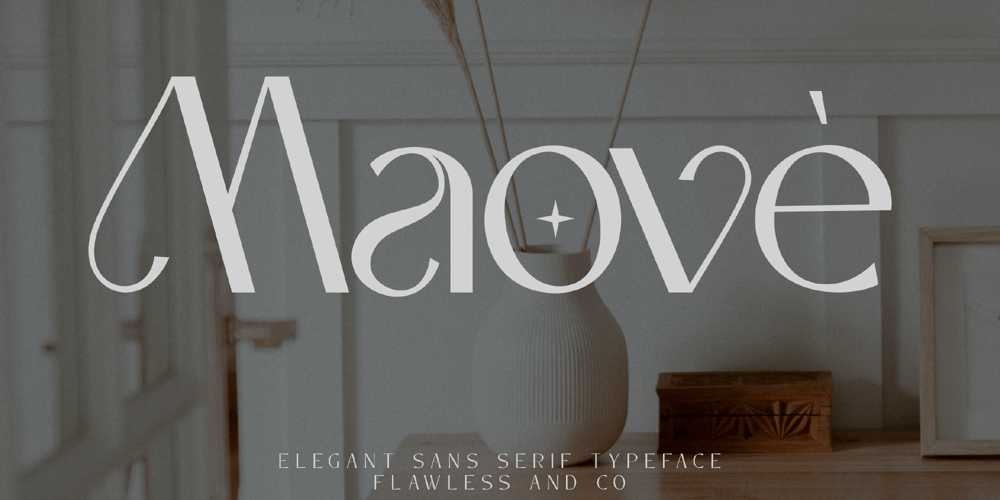
Maove
Maove font
Maove Font Family was designed by Achmad Yani and published by Flawlessandco. Maove contains 1 styles and family package options. Introducing “Maove” – Modern Elegant Sans Serif Font. Experience the epitome of modern elegance with “Maove” a sophisticated sans serif font that combines contemporary style with a wealth of alternative characters and ligatures to enhance your creative versatility.There’s some connected letters and some alternates that suitable for any graphic designs such as branding materials, t-shirt, print, business cards, logo, poster, t-shirt, photography, quotes .etcThis font support for some multilingual. Also contains uppercase A-Z and lowercase a-z, alternate character, numbers 0-9, and some punctuation.If you need help, just write me! Thanks so much for checking out my shop!